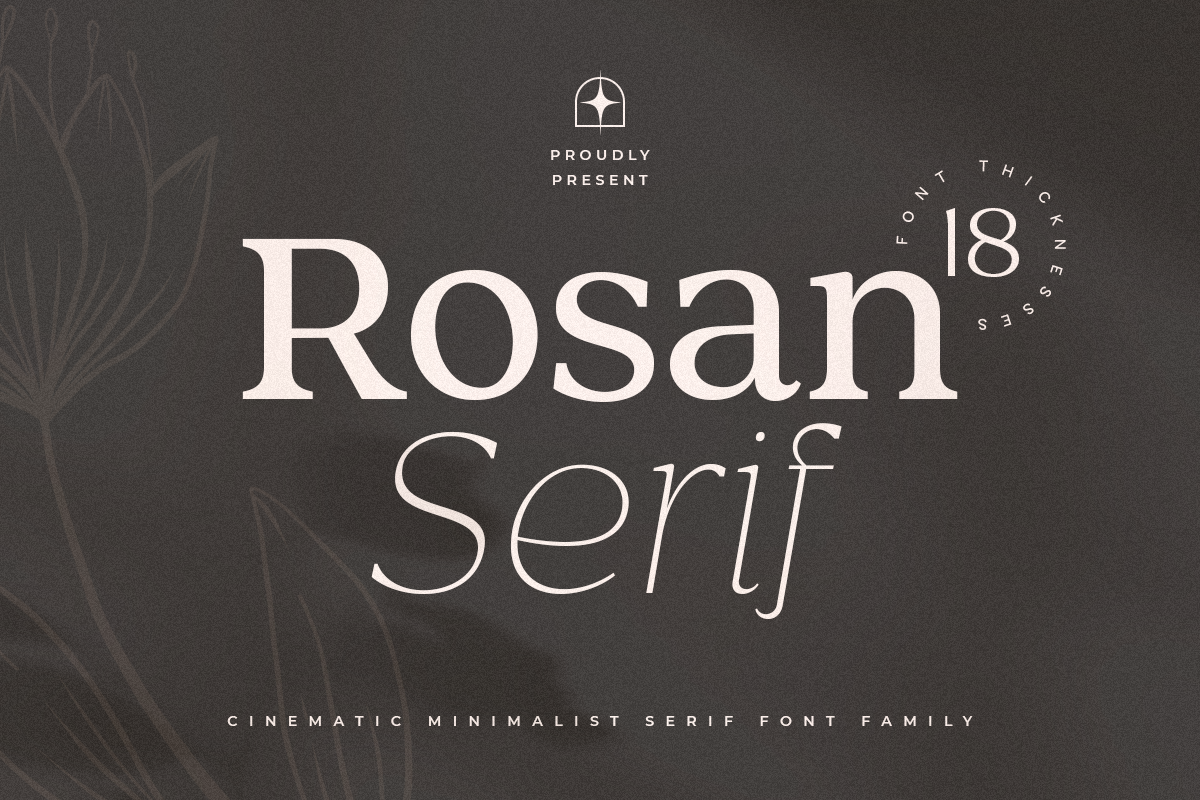
Rosan Serif - Cinematic Serif Font
Elevate your designs with Rosan Serif - a cinematic luxury font that merges timeless elegance with modern sophistication. Drawing inspiration from the golden age of cinema, Rosan Serif delivers the perfect balance of vintage glamour and contemporary aesthetics. This sophisticated typeface is crafted for designers who demand excellence in their high-end projects, making it the ideal choice for creating memorable logos and refined branding materials that truly stand out. What's Included: Rosan Ser...